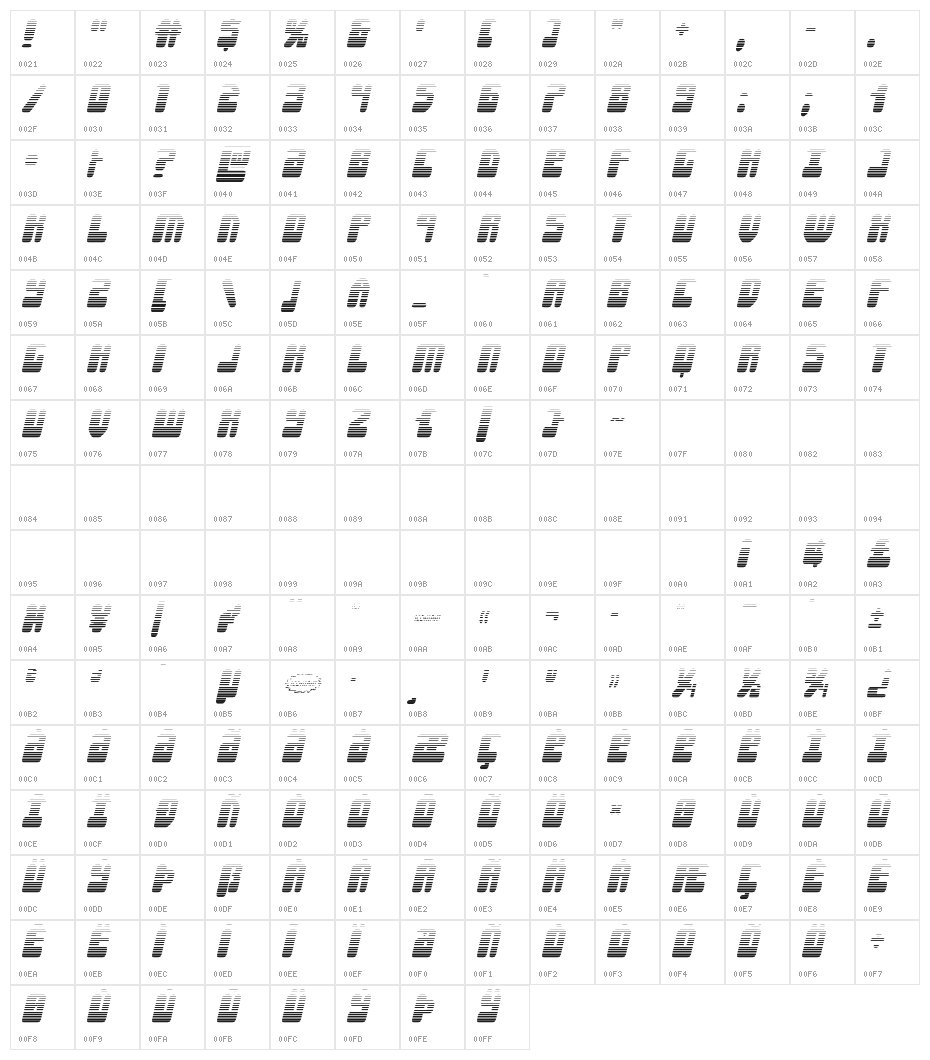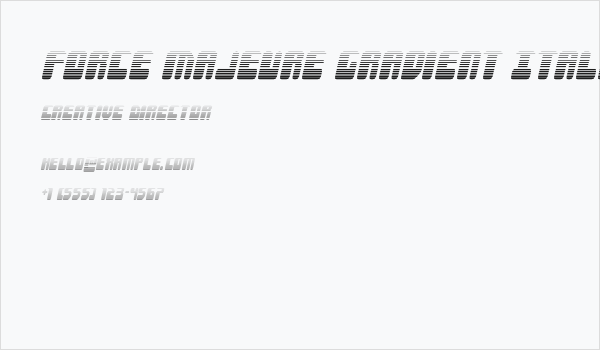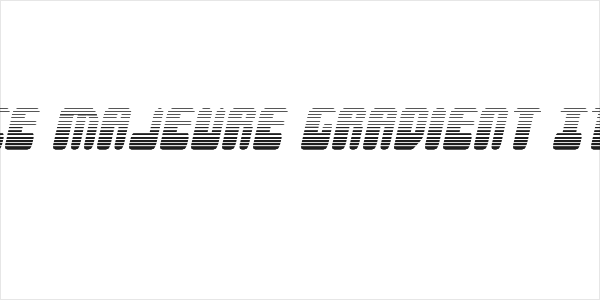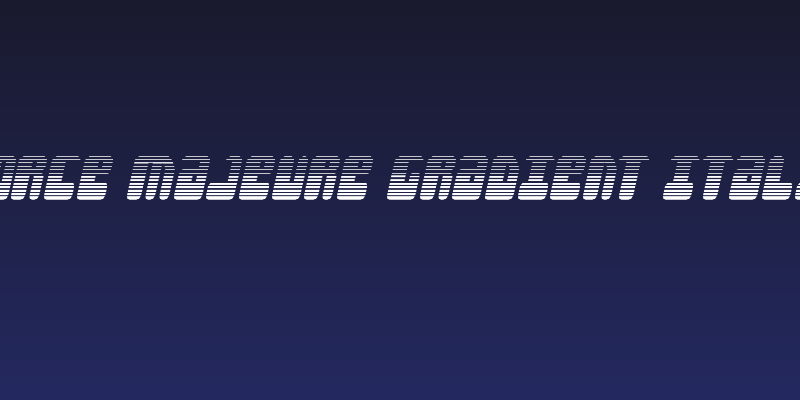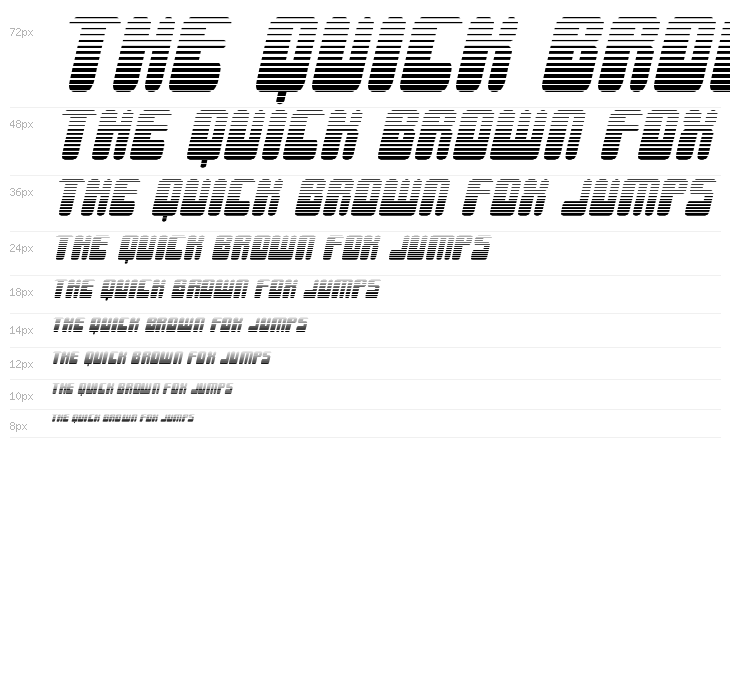
Force Majeure Gradient Italic Font
Force Majeure Gradient Italic Description
This font features a bold, italicized style with a unique gradient effect created by horizontal lines that decrease in thickness from top to bottom. The characters are wide and have a futuristic, digital appearance, reminiscent of retro computer graphics or sci-fi themes. The uppercase and lowercase letters maintain a consistent style, with rounded edges and a slanted orientation that enhances the dynamic look. Numbers and special characters follow the same design principles, ensuring uniformity across all glyphs. The overall aesthetic is striking and modern, making it suitable for projects that require a bold statement.
| Overall Style | Futuristic, Modern |
| Proposed Projects | Ideal for sci-fi themed designs, digital art, video game graphics, and modern advertising. |